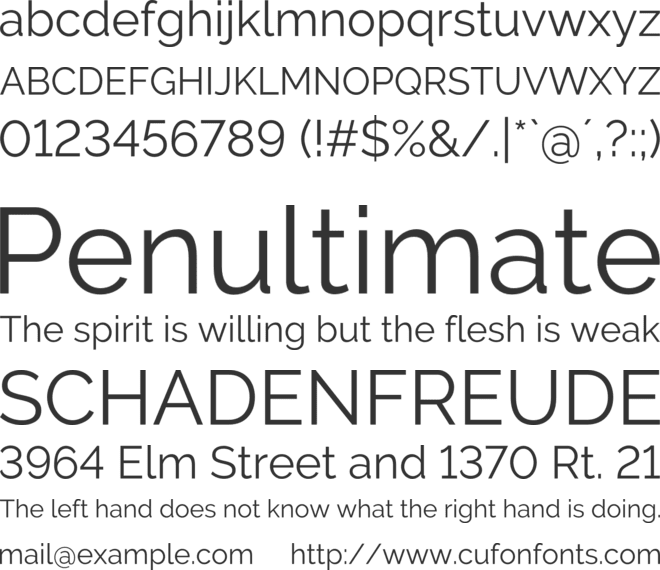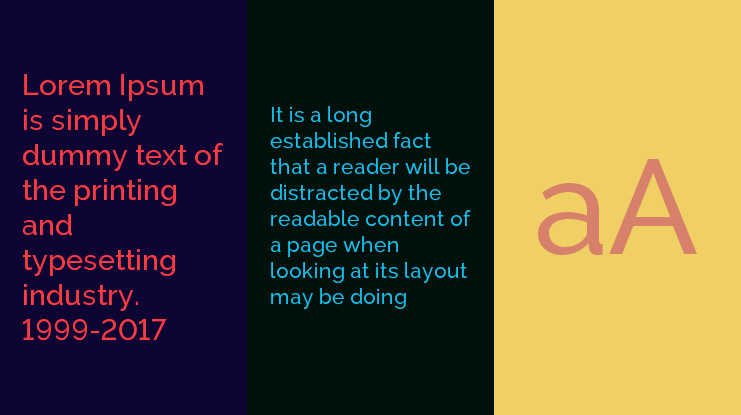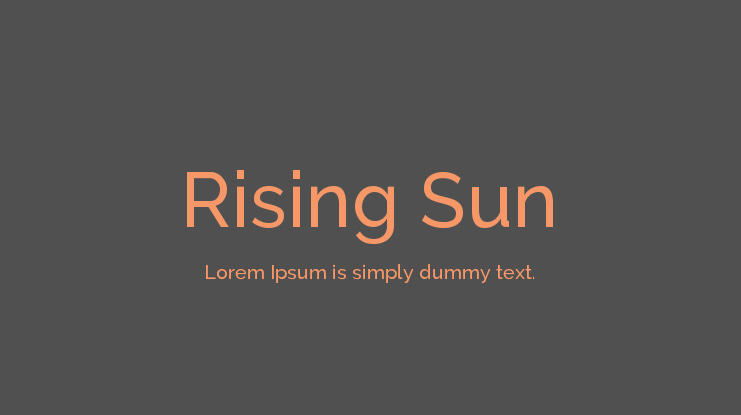
Rising Sun is back, and with 9 weights with matching italics.
It is developed from Raleway, with changes being lining numerals, a reworked W/w, and many more. Rising Sun is released under the SIL Open Font License, v1.1.